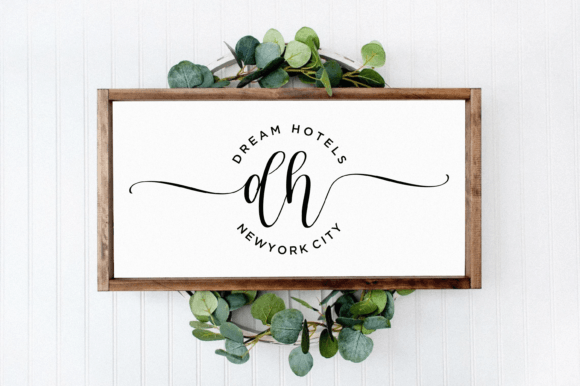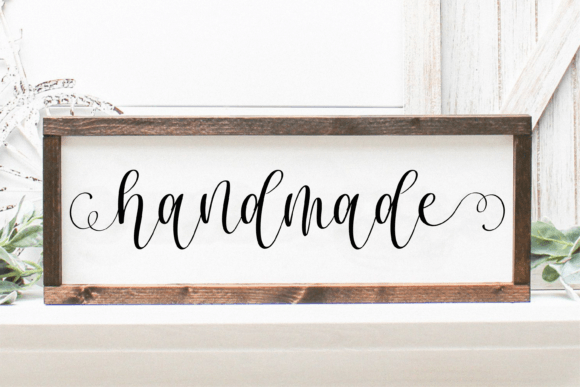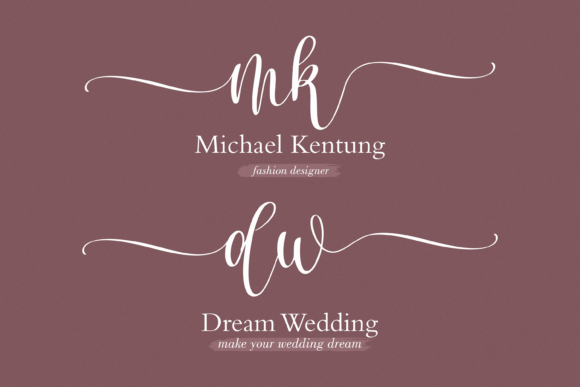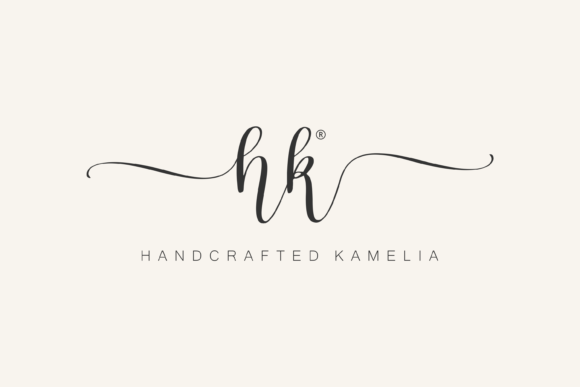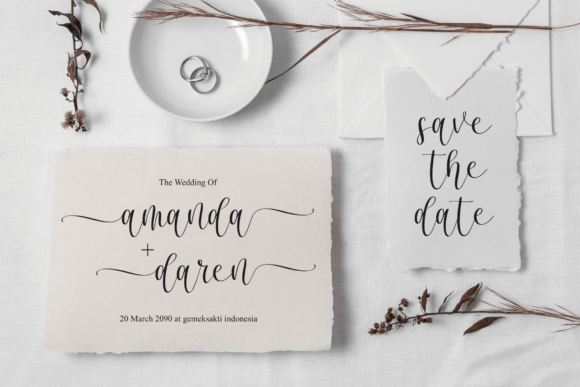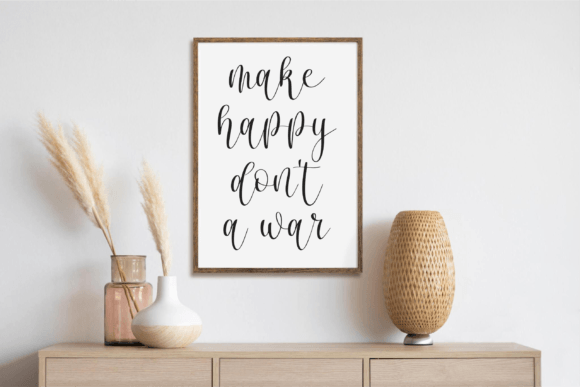
Introduction to Hindia Font
Have you ever found yourself stuck in a creative rut, staring at a blank page with a blank mind? You know, that moment when inspiration strikes, but the right words or design elements just won’t come together? This is where the perfect design resource can make all the difference. For designers seeking that elusive ‘wow factor’, we’re excited to introduce the Hindia Font – a beautifully crafted, handwritten font that’s about to become your new go-to.
With its elegant calligraphic influences and modern twist, the Hindia Font is poised to elevate your creative projects to new heights. Whether you’re working on a branding project, a blog post, or even a social media graphic, this high-quality font is sure to add a touch of sophistication and flair. Plus, with its transparent background and PUA encoding, you’ll have seamless access to all the glyphs and ligatures you need to bring your vision to life.
Key Features of Hindia Font
- Unique and elegant script font with a transparent background, perfect for adding a touch of sophistication to any design.
- Designed with precision, the Hindia Font is perfect for headings, titles, and other design elements where a touch of elegance is required.
Honest Review: Hindia Font
I recently came across the Hindia Font and I must say it’s a beautiful addition to any design project. This font is perfect for creative projects that require a touch of elegance and sophistication. The high quality design makes it stand out from other free download fonts.
One of the standout features of the Hindia Font is its transparent background, which allows for seamless integration into any design. This is especially useful for designers who want to create visually appealing and professional-looking materials.
- ✨ High quality design that’s perfect for creative projects
- ✨ Transparent background for easy integration into any design
- ✨ Elegant and sophisticated feel that’s perfect for professional materials
- ⚠️ Limited font styles available
- ⚠️ May not be suitable for projects that require a bold or playful font
Overall, I’m impressed with the Hindia Font. While it may have some limitations, its high quality design and transparent background make it a valuable resource for designers. I would definitely recommend it for any creative project that requires a touch of elegance and sophistication.
To get the most out of the Hindia Font, use it for creative projects that require a unique and stylish touch. Common use cases include logos, branding materials, and social media graphics. Remember to pair the font with other design elements to create a cohesive look.